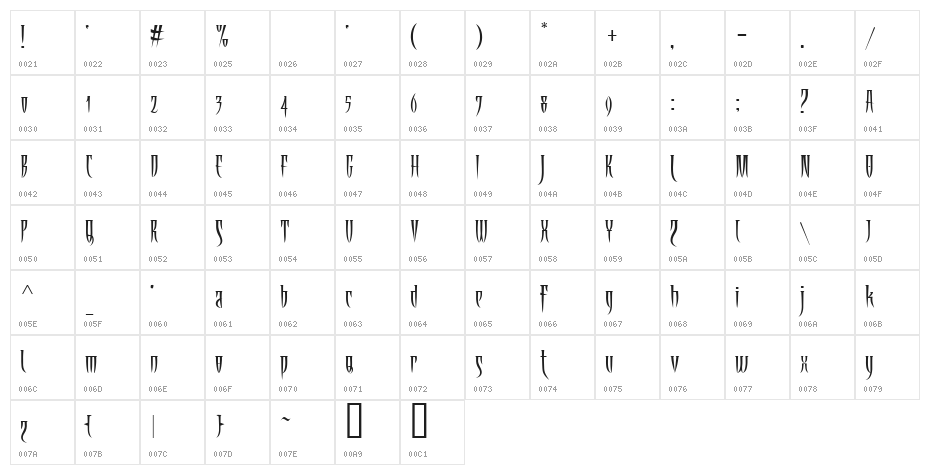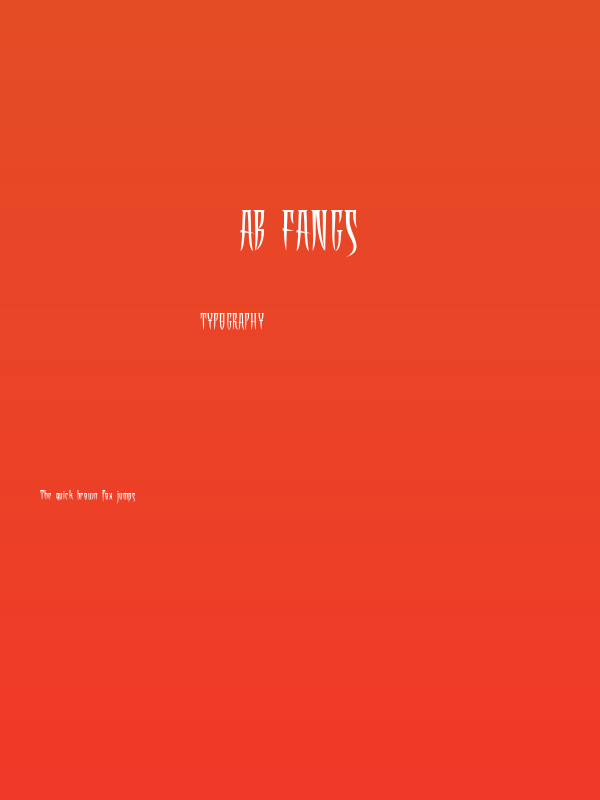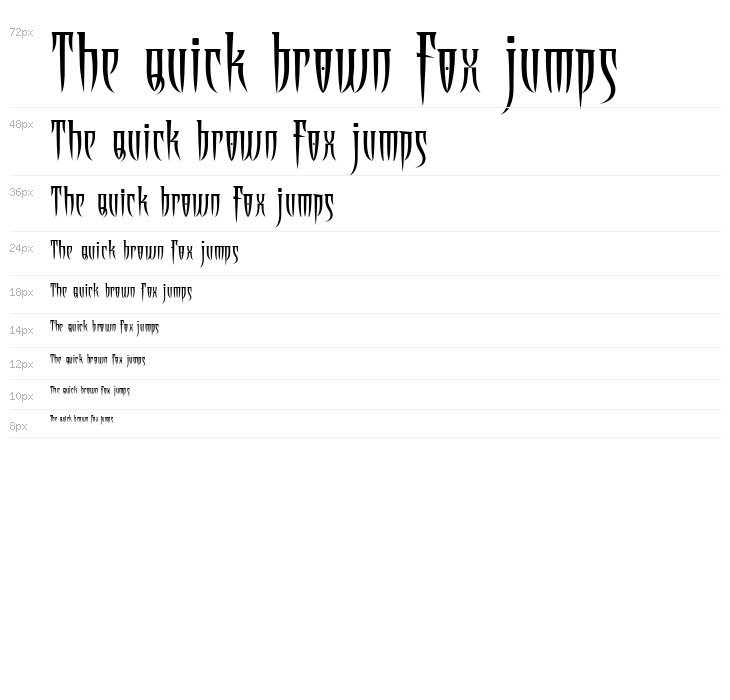
Ab Fangs Font
Ab Fangs Description
This font features a striking and sharp design with elongated, pointed serifs that give it a fang-like appearance. The characters are tall and narrow, creating a dramatic and imposing look. The uppercase letters are particularly bold, with a gothic influence that is both modern and edgy. The lowercase letters maintain the same sharpness, ensuring consistency across the typeface. Numbers and special characters are designed with the same attention to detail, making them suitable for a variety of uses. The overall style is unique and eye-catching, perfect for projects that require a bold statement.
| Width | Condensed |
| Overall Style | Modern, Gothic |
| Proposed Projects | Ideal for horror-themed designs, movie posters, book covers, and branding that requires a bold, edgy look. |